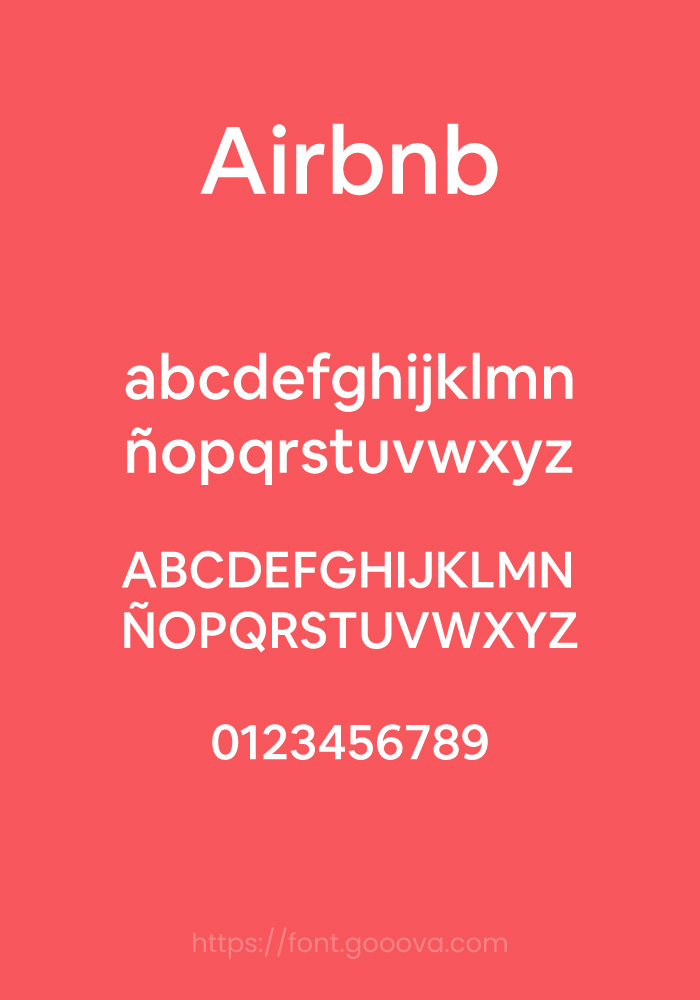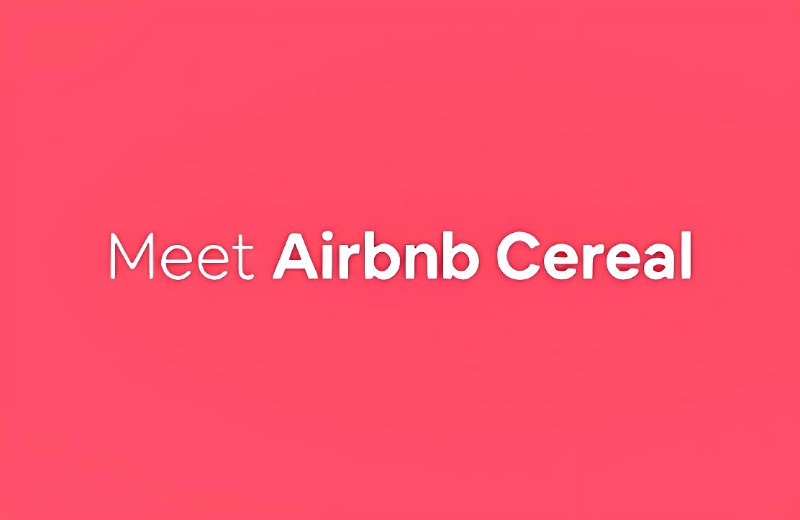
What Font Does Airbnb Use
What Font Does Airbnb Use - As a geometric sans serif, the typeface was. This friendly, unassuming typeface is what airbnb fell in love with and. What font does airbnb use? Airbnb offers arrangement for lodging, primarily homestays, or tourism experiences. Ah, the perfect bowl of ‘cereal’.
As a geometric sans serif, the typeface was. What font does airbnb use? Airbnb offers arrangement for lodging, primarily homestays, or tourism experiences. This friendly, unassuming typeface is what airbnb fell in love with and. Ah, the perfect bowl of ‘cereal’.
This friendly, unassuming typeface is what airbnb fell in love with and. What font does airbnb use? As a geometric sans serif, the typeface was. Airbnb offers arrangement for lodging, primarily homestays, or tourism experiences. Ah, the perfect bowl of ‘cereal’.
Ah, the perfect bowl of ‘cereal’. What font does airbnb use? As a geometric sans serif, the typeface was. This friendly, unassuming typeface is what airbnb fell in love with and.